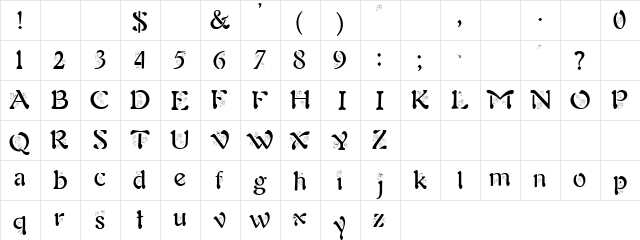
Farirys Paradise Regular
Design Context for Farirys Paradise Typeface
Farirys Paradise is a composed and adaptable typeface that performs quietly and consistently across a wide range of design contexts.